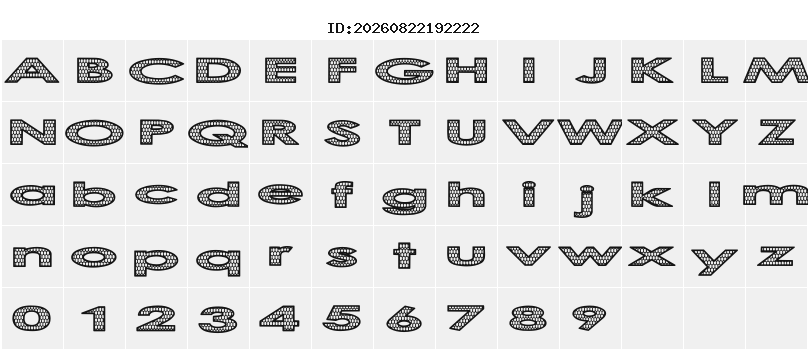
• Font Name: Scaling the Dragon
• Full Font Name: Scaling the Dragon
About Scaling the Dragon.ttf
Scaling the Dragon.ttf is a modern, elegant sans-serif font designed for ultimate readability and visual harmony. Perfect for branding, headlines, web design, and print materials.